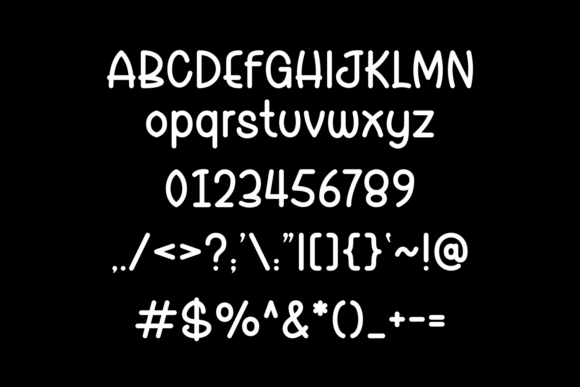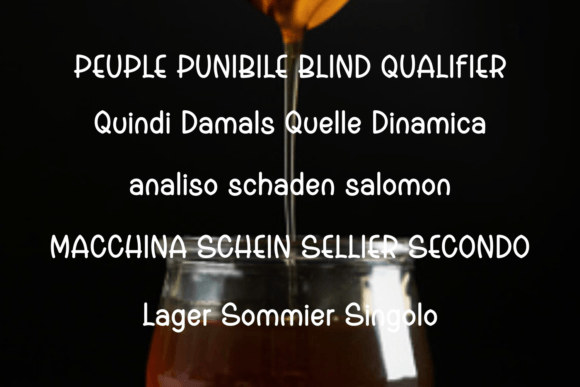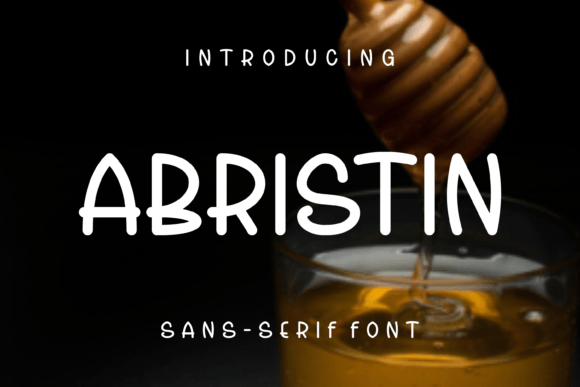
The Abristin Font: A Designer’s New Best Friend
I’ll never forget the moment I stumbled upon the Abristin font. I was working on a project for a client who needed a modern, yet approachable look for their branding. I had spent hours scouring the internet for the perfect font, but nothing seemed quite right. That was until I saw Abristin – a neat and casual sans serif font that instantly caught my eye.
As I started experimenting with Abristin, I realized that it was more than just a pretty face. Its clean lines, subtle curves, and exceptional legibility made it perfect for a wide range of design projects. In this article, I’ll share my experience with Abristin, including what I love about it, its limitations, and how to get the most out of this amazing font.
An Honest Review of Abristin
What I Love About Abristin ✨
- ✅ Exceptional legibility: Abristin is clear and easy to read, even at small font sizes.
- ✅ Versatility: This font works beautifully for both digital and print projects.
- ✅ Unique character: Abristin has a distinct personality that sets it apart from other sans serif fonts.
- ✅ Highly customizable: With OpenType features and stylistic alternates, you can tailor Abristin to fit your design needs.
While Abristin is an excellent font, it’s not perfect. Here are a few things to keep in mind:
- ⚠️ Limited language support: Abristin currently supports a limited number of languages, so be sure to check the font’s capabilities before using it for a multilingual project.
- ⚠️ Not ideal for body text: While Abristin is legible, it’s not the best choice for long blocks of body text. It’s better suited for headings, titles, and short paragraphs.
The Story Behind Abristin
Abristin was designed by a team of typographers who wanted to create a font that was both modern and approachable. Inspired by the clean lines and simplicity of sans serif fonts, they crafted Abristin to be a versatile and highly legible font that’s perfect for a wide range of design projects.
A: Abristin is a neat and casual sans serif font designed for modern design projects.